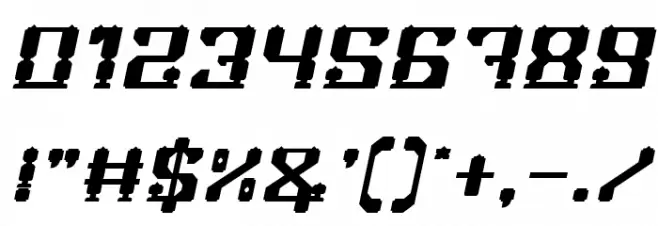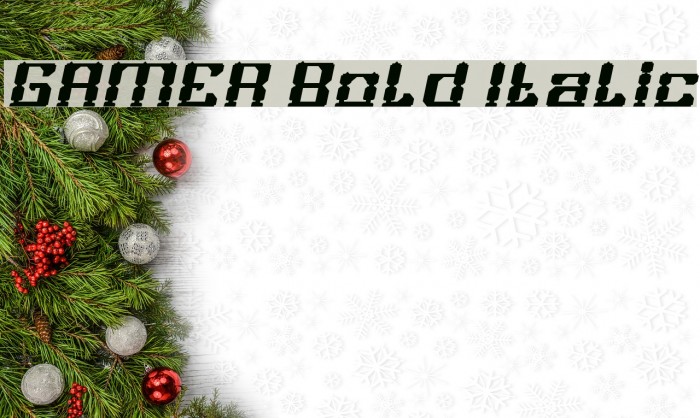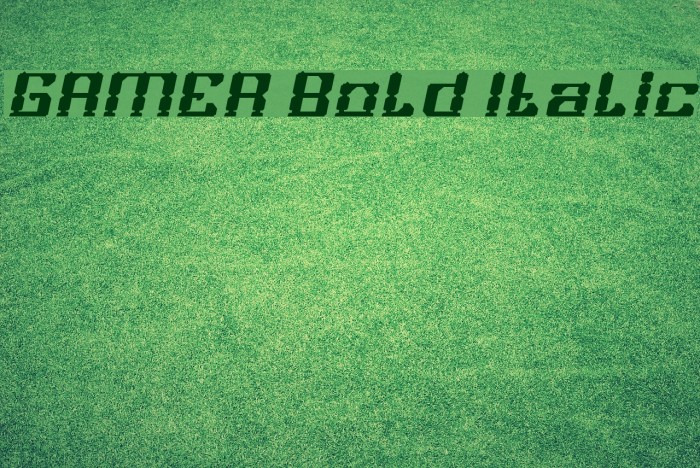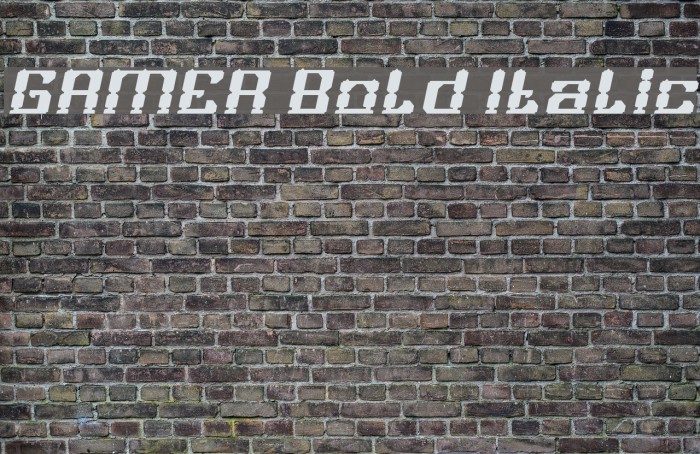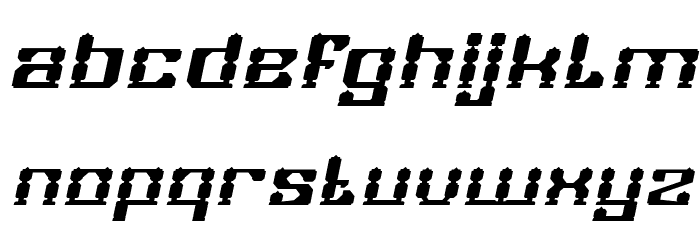
GAMER Bold Italic Font
GAMER Bold Italic Description
This font features a bold and italicized style with a distinctly modern and digital aesthetic. The characters are constructed with a blocky, pixelated appearance, reminiscent of classic video game graphics. Each letter and number is designed with a consistent thickness, giving it a uniform and cohesive look. The angular edges and geometric shapes contribute to its futuristic vibe, making it stand out in any design. The font maintains a balanced spacing between characters, ensuring readability while preserving its unique style. Its boldness and italic slant add a dynamic and energetic feel, suitable for attention-grabbing headlines or titles.
A bold, italicized font with a pixelated, digital style ideal for modern designs from Uncategorized fonts.
- Proposed Projects: Perfect for video game titles, tech-themed posters, digital artwork, and branding for tech companies.